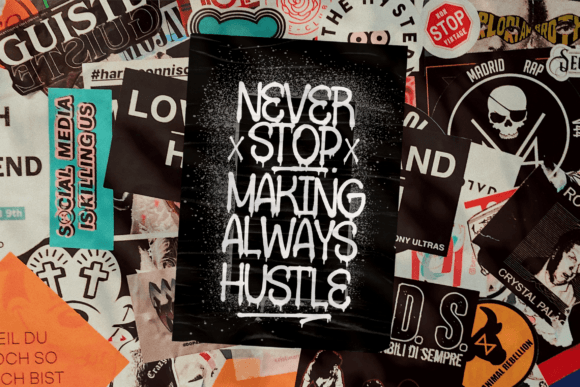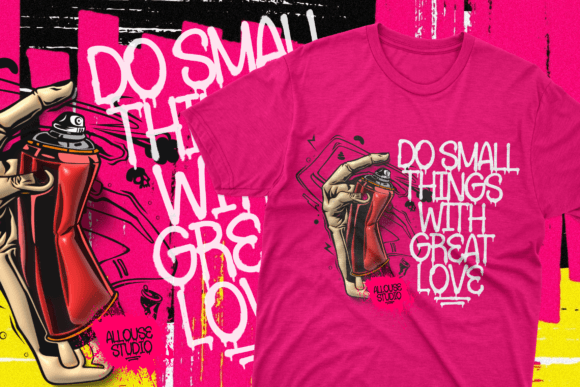
Urbandrips Font
Urbandrips is a grafitti display font.
Urbandrips is perfect for product packaging, branding project, magazines, social media, weddings, or just used to express words above the background.